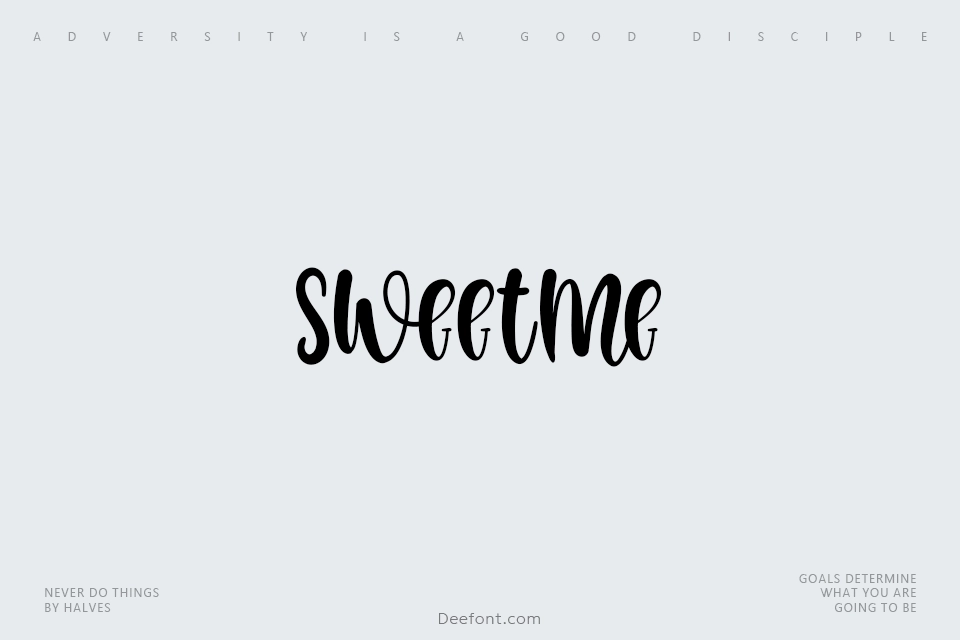
Sweetme Font
Sweetme is a charming handwritten script font designed by PiPi Creative that exudes warmth and personality. Its seamless flow captures genuine expression, making it perfect for designs seeking intimacy. The condensed style contributes to elegant appearance with graceful readability. Visually appealing and practical, Sweetme shines in greeting cards, branding materials, and social media graphics, inviting connection while maintaining sophisticated allure.